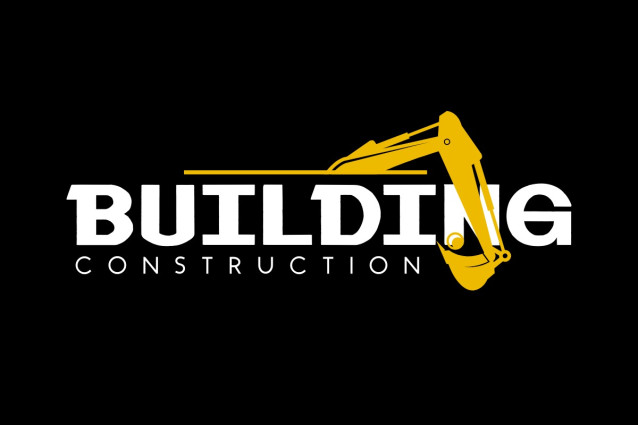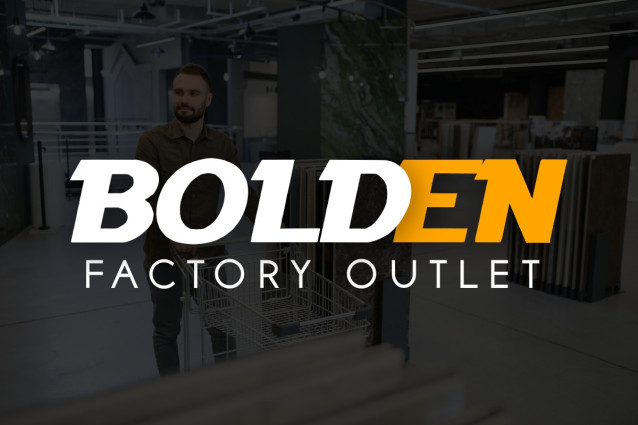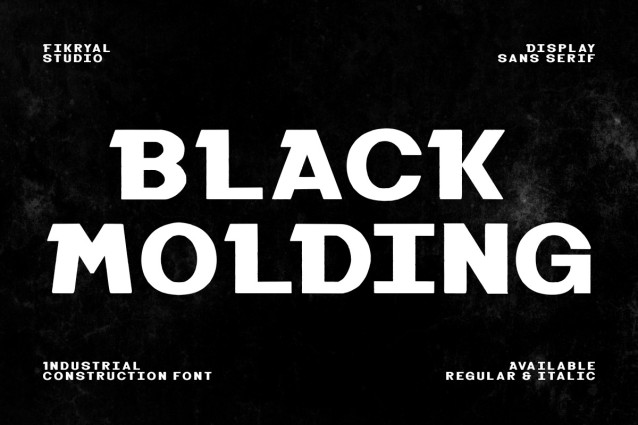
Black Molding Font
Black Molding Font is a bold industrial display sans serif designed for heavy construction, infrastructure, and corporate engineering branding. Built with a strong mechanical structure and confident proportions, this typeface delivers authority, durability, and clarity—qualities essential for industrial and construction-focused design.
Designed as an all-caps display font, Black Molding comes in two styles: Regular and Italic, offering flexibility for both solid corporate layouts and dynamic typographic emphasis.
A distinctive feature of Black Molding lies in its separated uppercase and lowercase character sets. Each set features different shapes and constructions, allowing designers to freely mix uppercase and lowercase characters to create custom typographic expressions. This approach gives full creative control while maintaining a consistent industrial tone—perfect for logos, headlines, signage, and brand identities.
With its clean geometry, open forms, and industrial character, Black Molding is ideal for construction companies, heavy machinery branding, infrastructure projects, architecture studios, industrial posters, and corporate visual systems.